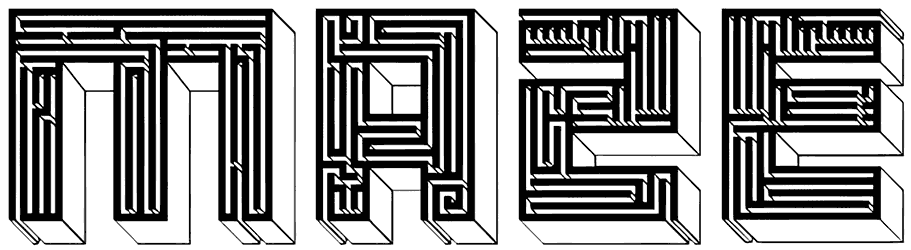
Maze Font
Designed byDaniel Ryves
With the Maze font in your collection, you no longer need to spend hours choosing fonts before starting any project. The origin of this font goes back to shadow fonts, but a maze is designed inside each letter that adds mystery to any project.
At the same time, this internal labyrinth can create an image of hardware for you, which makes this 3D font ideal for giving a visual identity to mechanical and architectural companies.
Note of the authorFont created by Daniel Ryves – www.danielryves.comFont name Maze is given because each letter is built up from individuals mazes